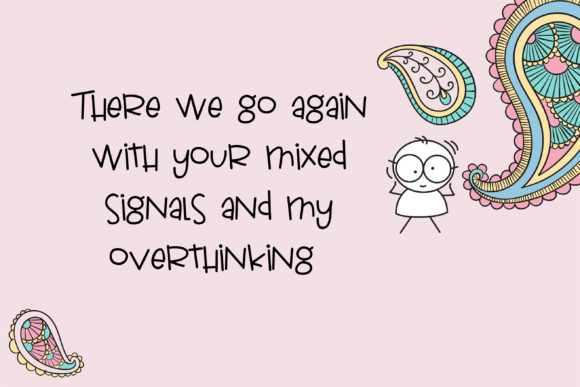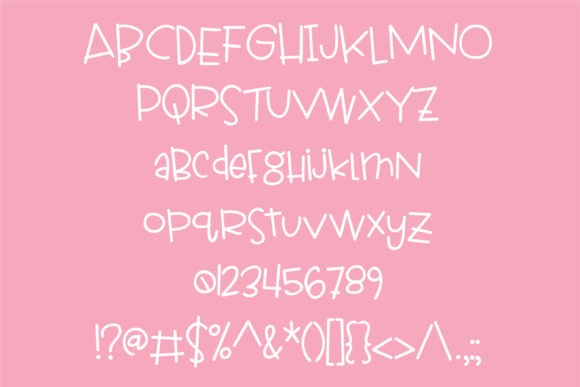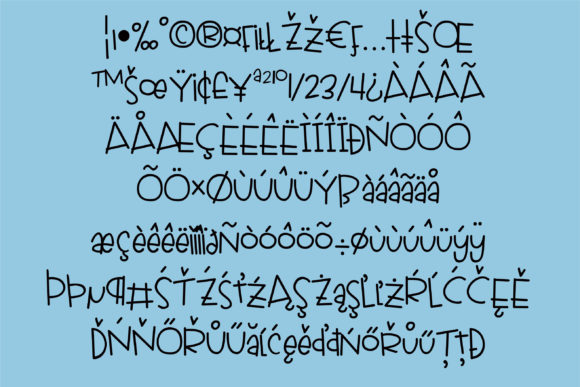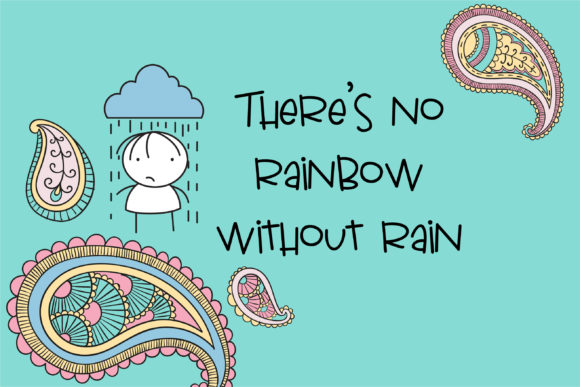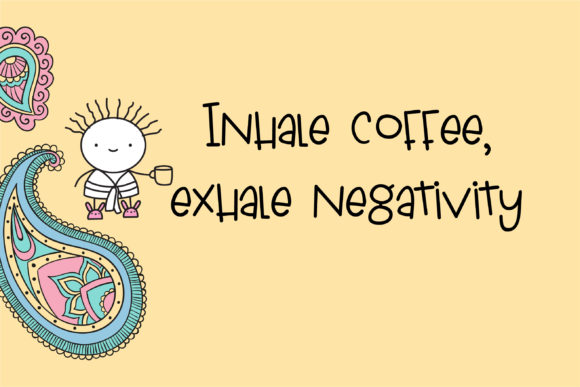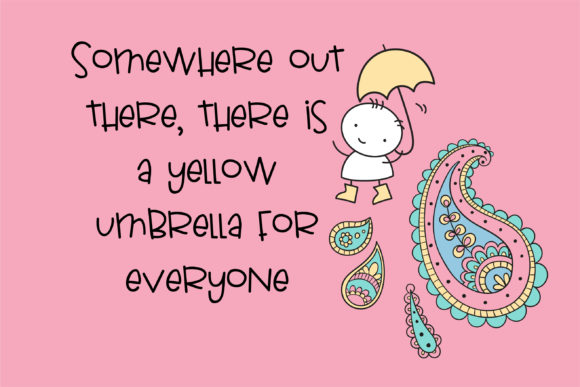
Paisley Font
Paisley is a fun and neat handwritten font. Clean and a little bit quirky, this font is the perfect fit for all of your logos, branding, social media, and crafty DIY projects.